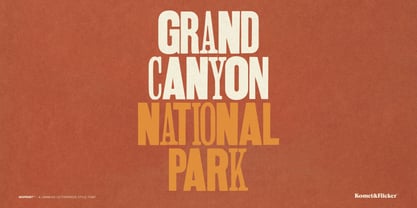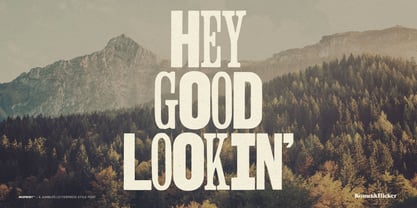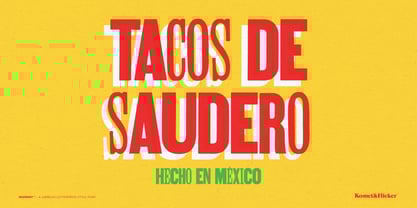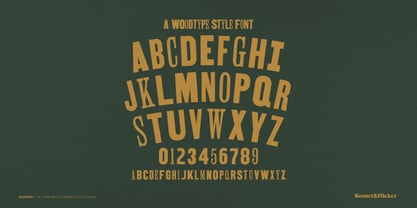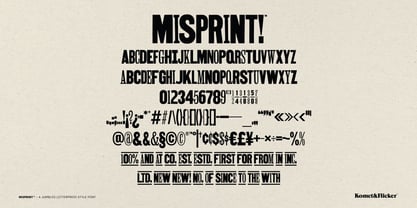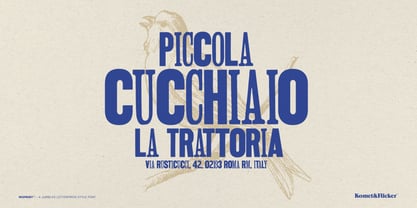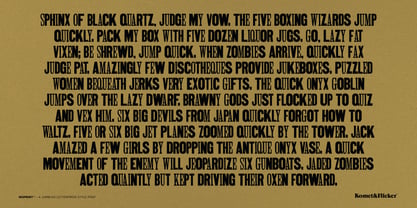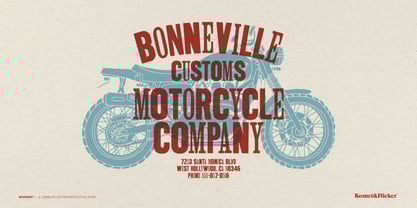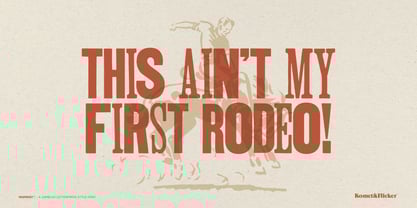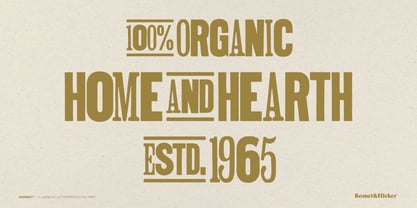
Misprint
by Komet & Flicker
MISPRINT! is a bold all-caps font inspired by the jumbled charm of vintage wood type letterpress. Packed with character, it gives your designs an authentic hand-printed look that’s perfect for posters, packaging, branding, and more. The lowercase letters act as alternates, letting you mix and match for natural variation, while additional glyph alternates keep things fresh and unpredictable. To top it off, MISPRINT! includes 20 custom connecting words (and, the, with, etc.) for seamless, eye-catching typography. If you’re looking for a typeface that stands out with rugged personality and print-shop attitude MISPRINT! delivers.
THIS FONT INCLUDES
• Full A-Z basic latin characters
• Select European characters
• Numbers, punctuation, and select symbols
• Set of 20 custom connecting word glyphs